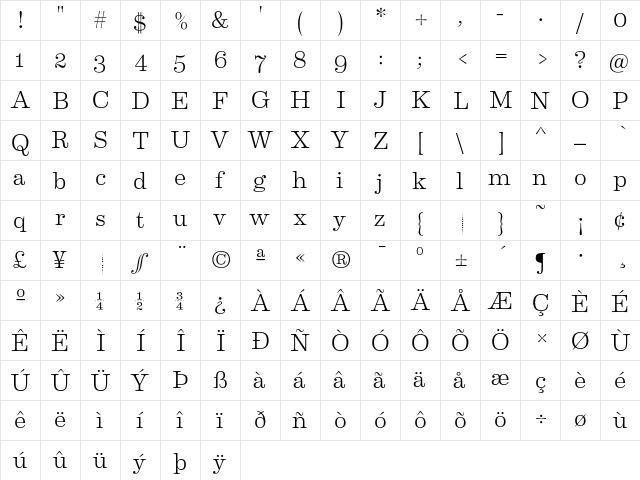
Eames Century Modern Light Regular
| Foundry | House Industries |
| Designer | Erik van Blokland |
| Year | 2010 |
Design Context for Eames Century Modern Light Typeface
Eames Century Modern Light is a composed and adaptable typeface that performs quietly and consistently across a wide range of design contexts. The delicate stroke weight brings airiness and refinement to layouts.